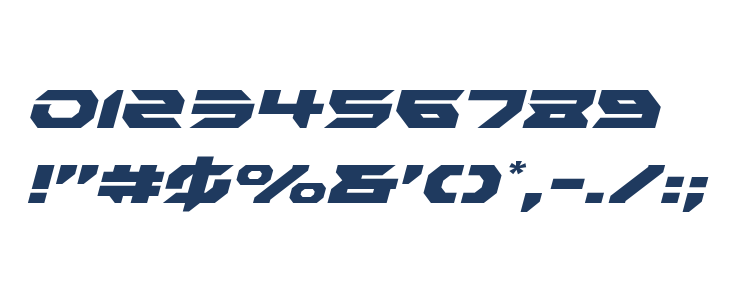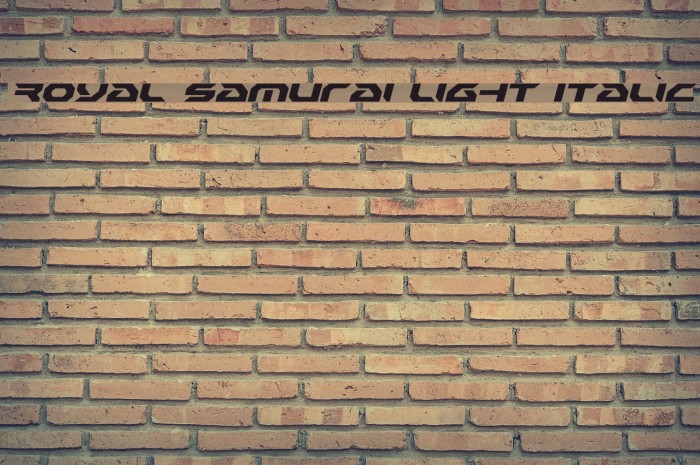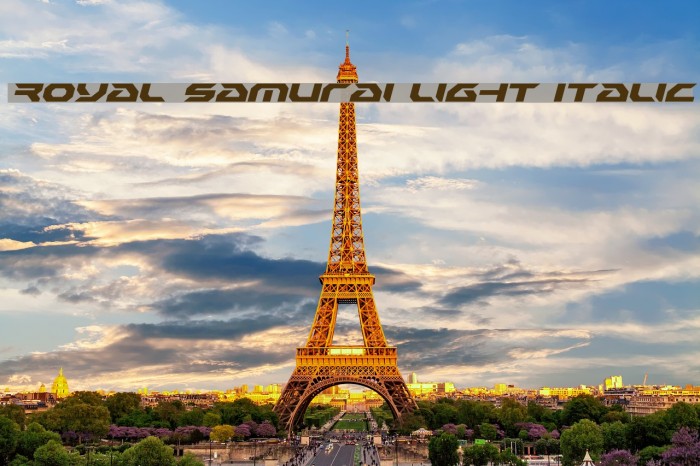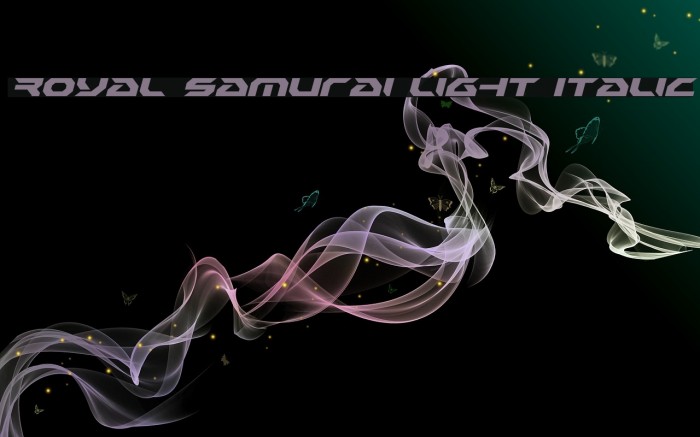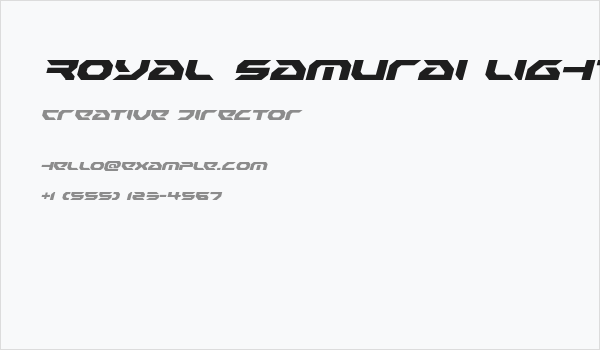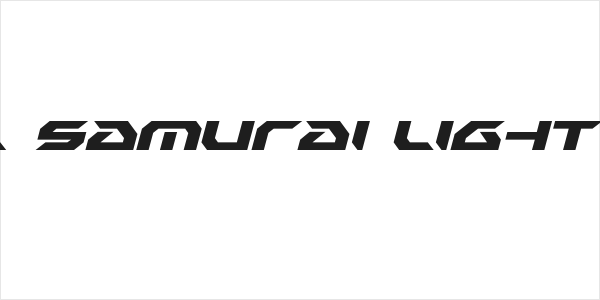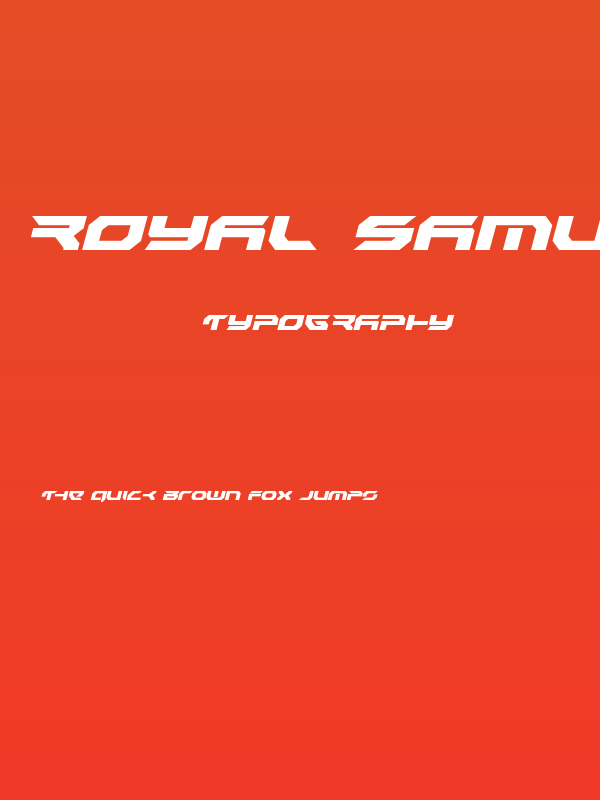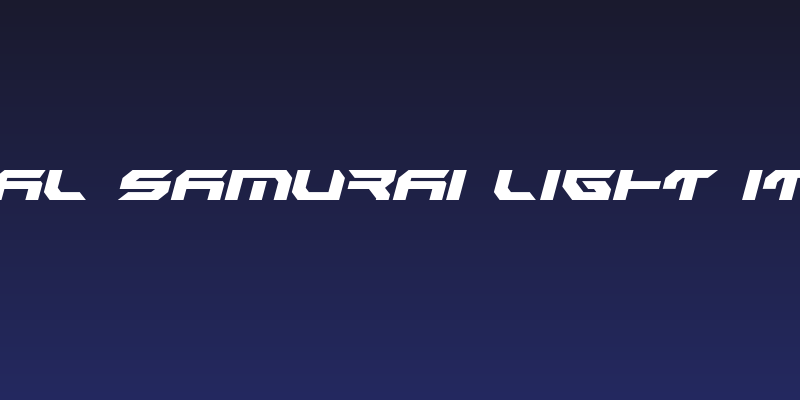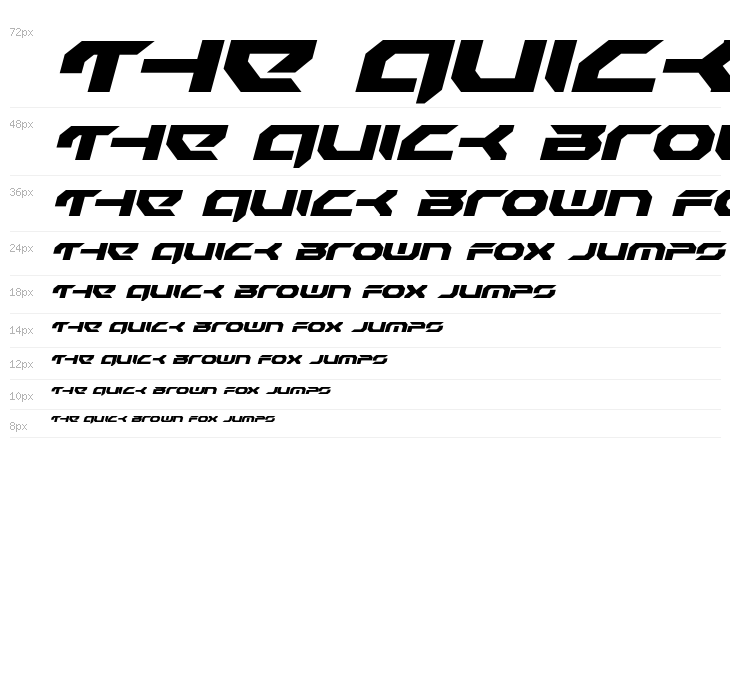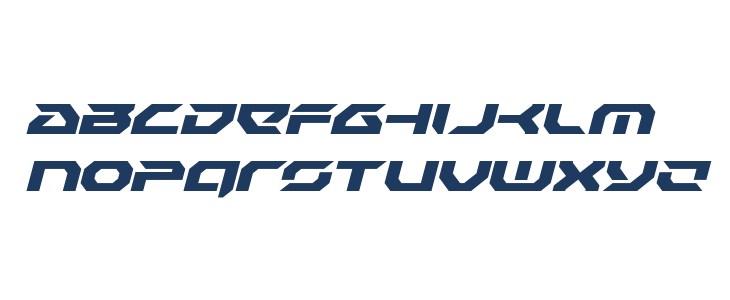
Royal Samurai Light Italic Font
Royal Samurai Light Italic Description
This font features a bold and angular design, reminiscent of futuristic and martial aesthetics. The characters are sharply cut with geometric precision, giving them a dynamic and aggressive look. The italic style adds a sense of motion and speed, enhancing its modern appeal. The uppercase and lowercase letters maintain a consistent style, with unique cuts and angles that create a cohesive visual identity. Numbers and special characters follow the same design principles, ensuring uniformity across all glyphs. This font is ideal for projects that require a strong, impactful presence.
| Proposed Projects | Ideal for video game titles, movie posters, branding for tech companies, and any project needing a modern, edgy look. |